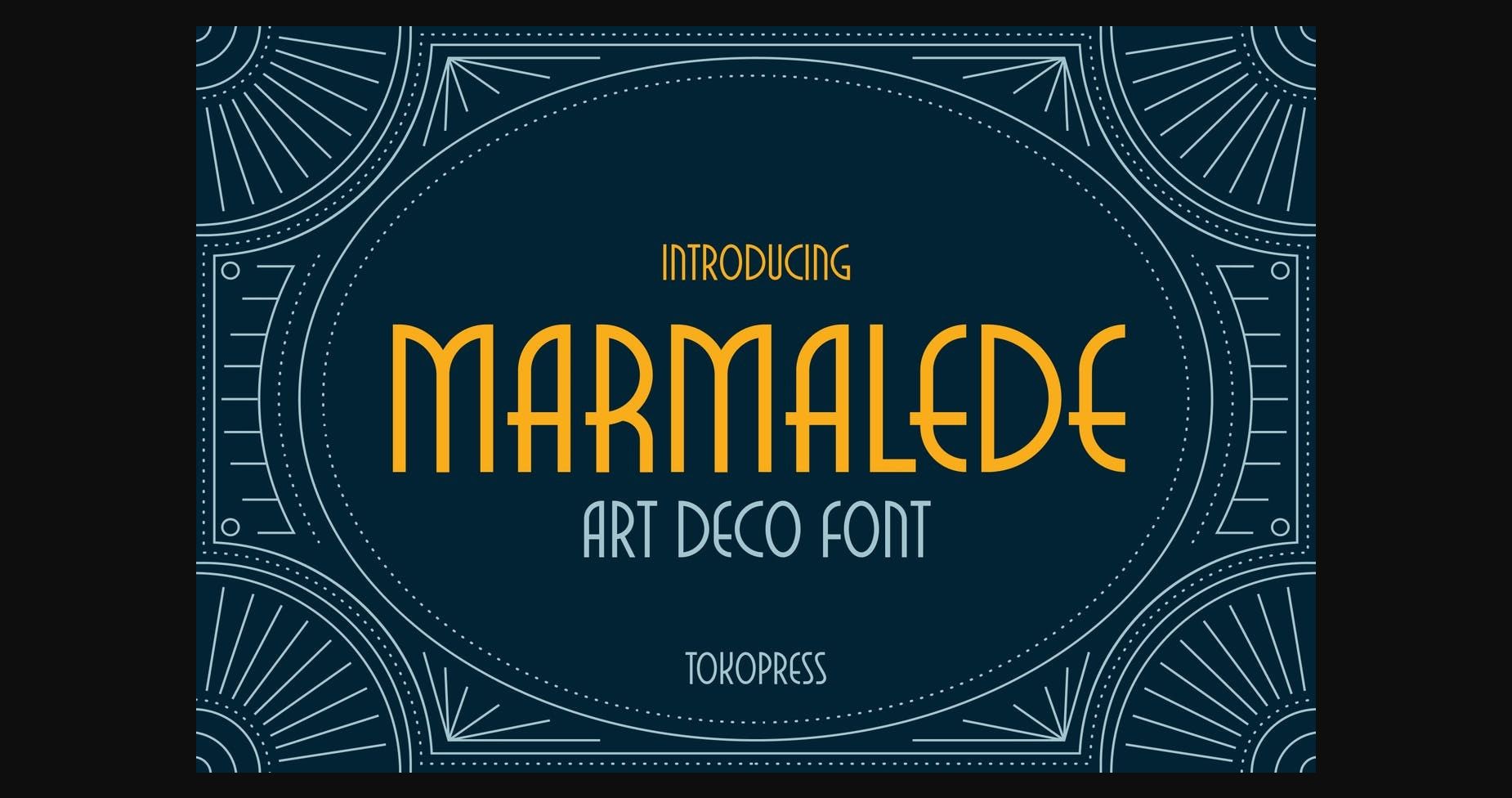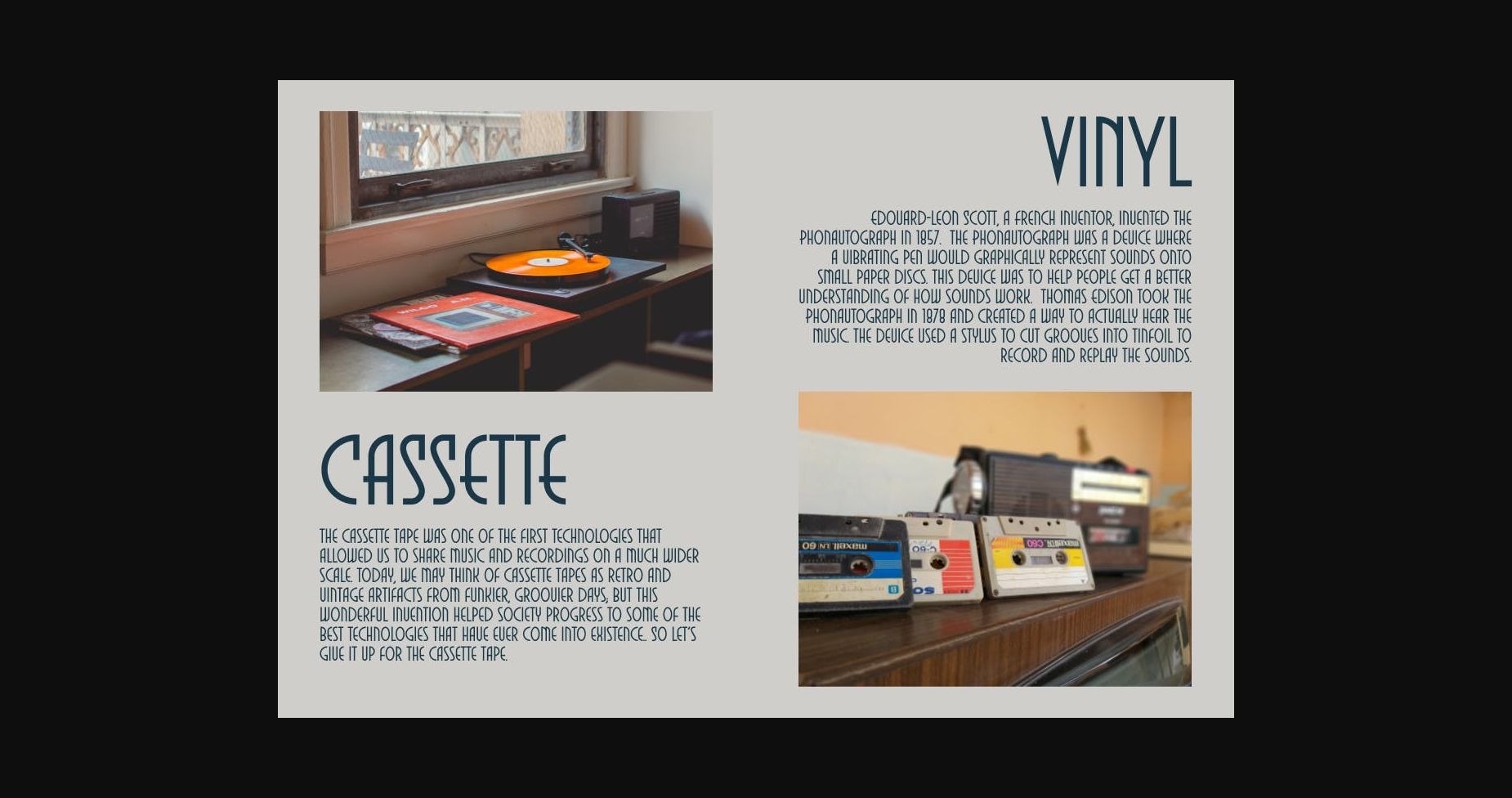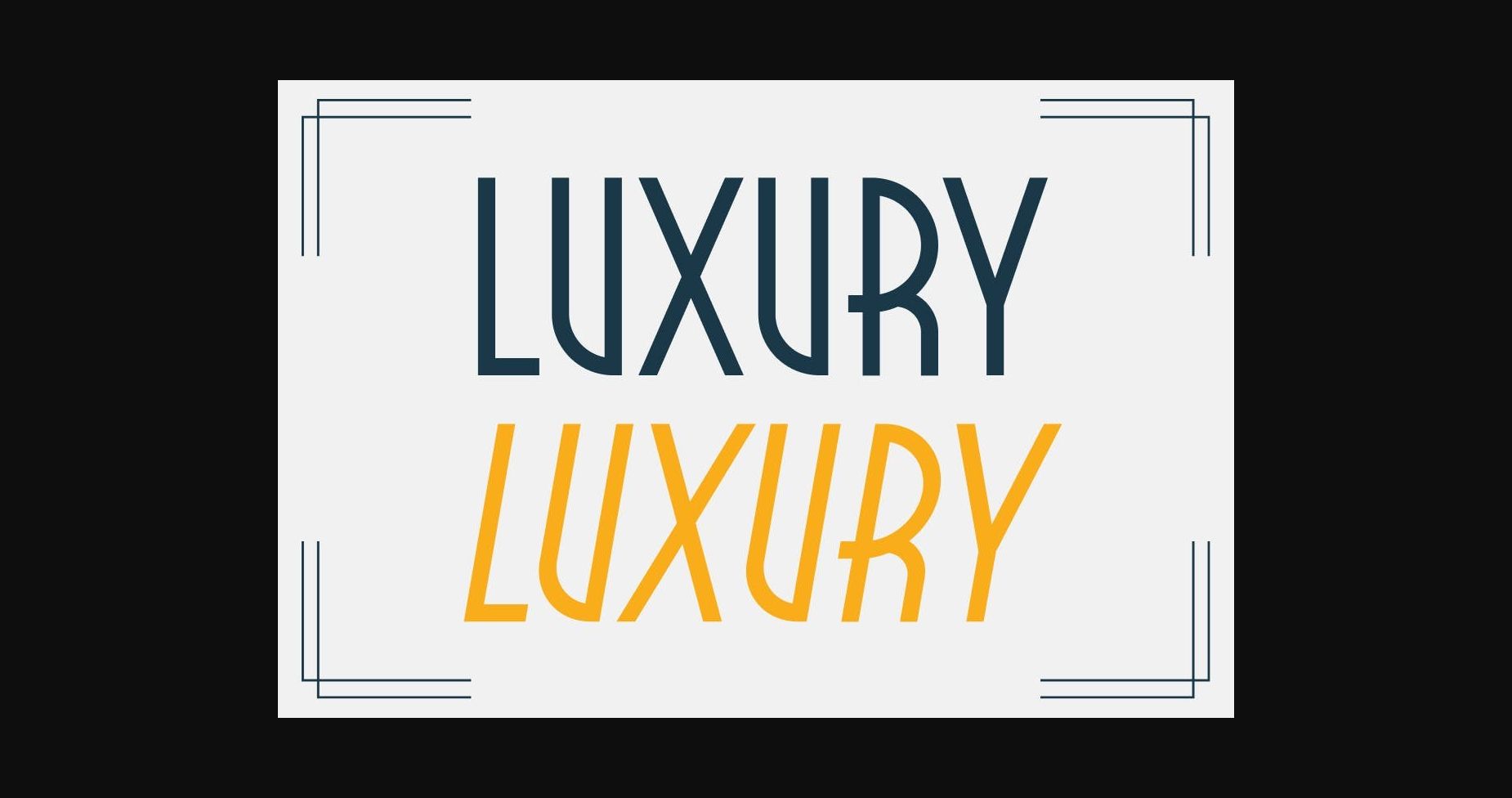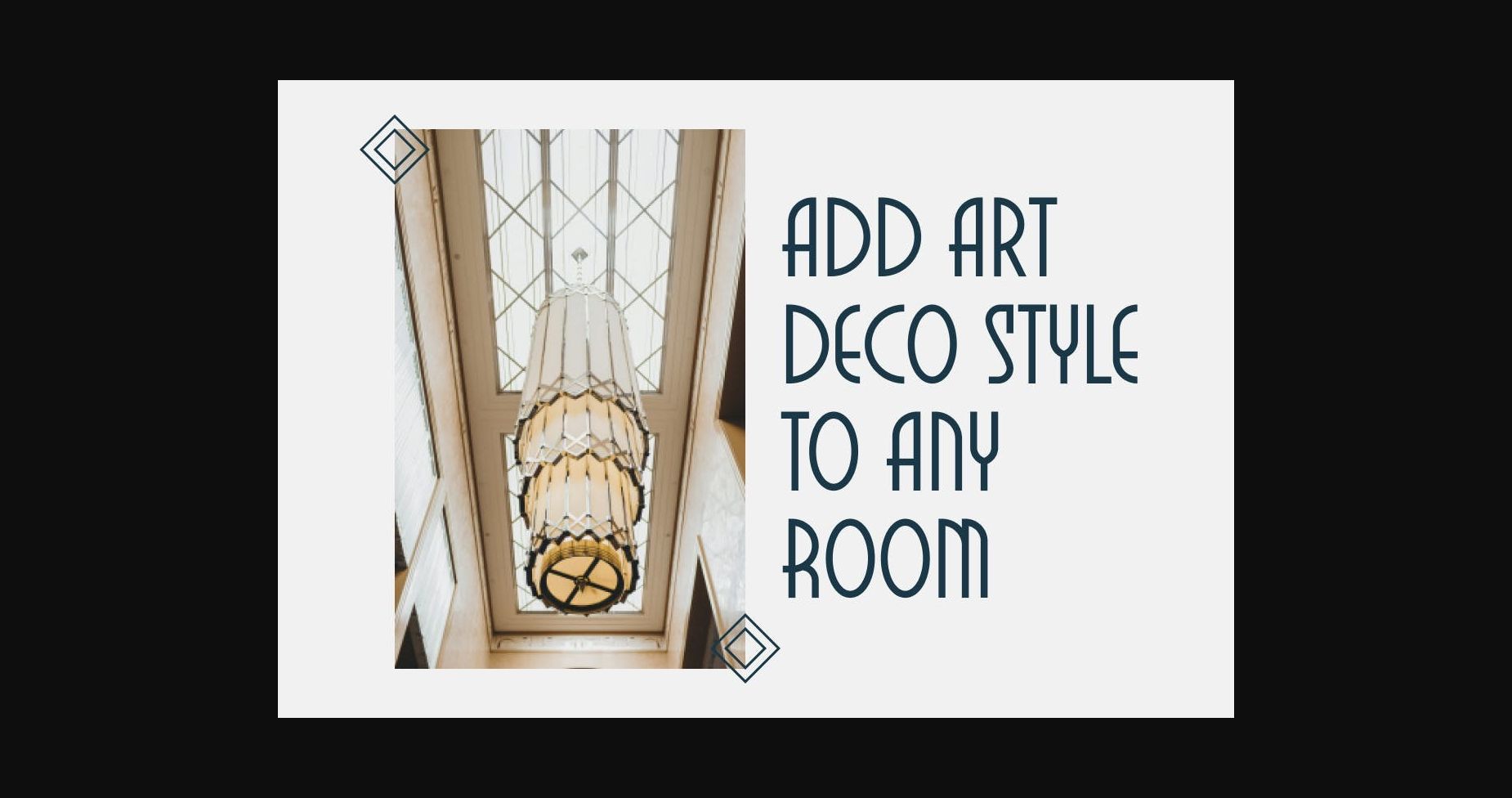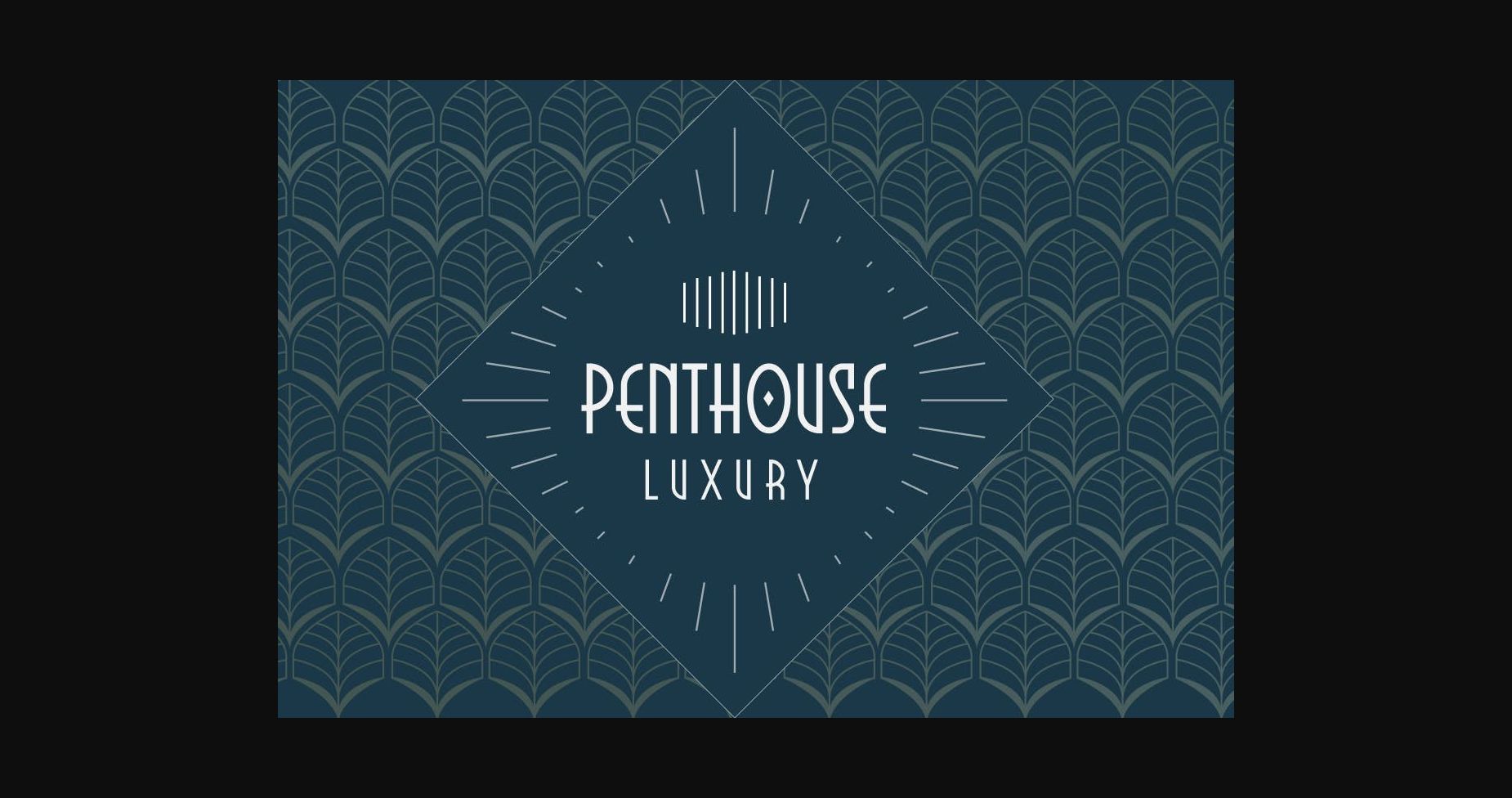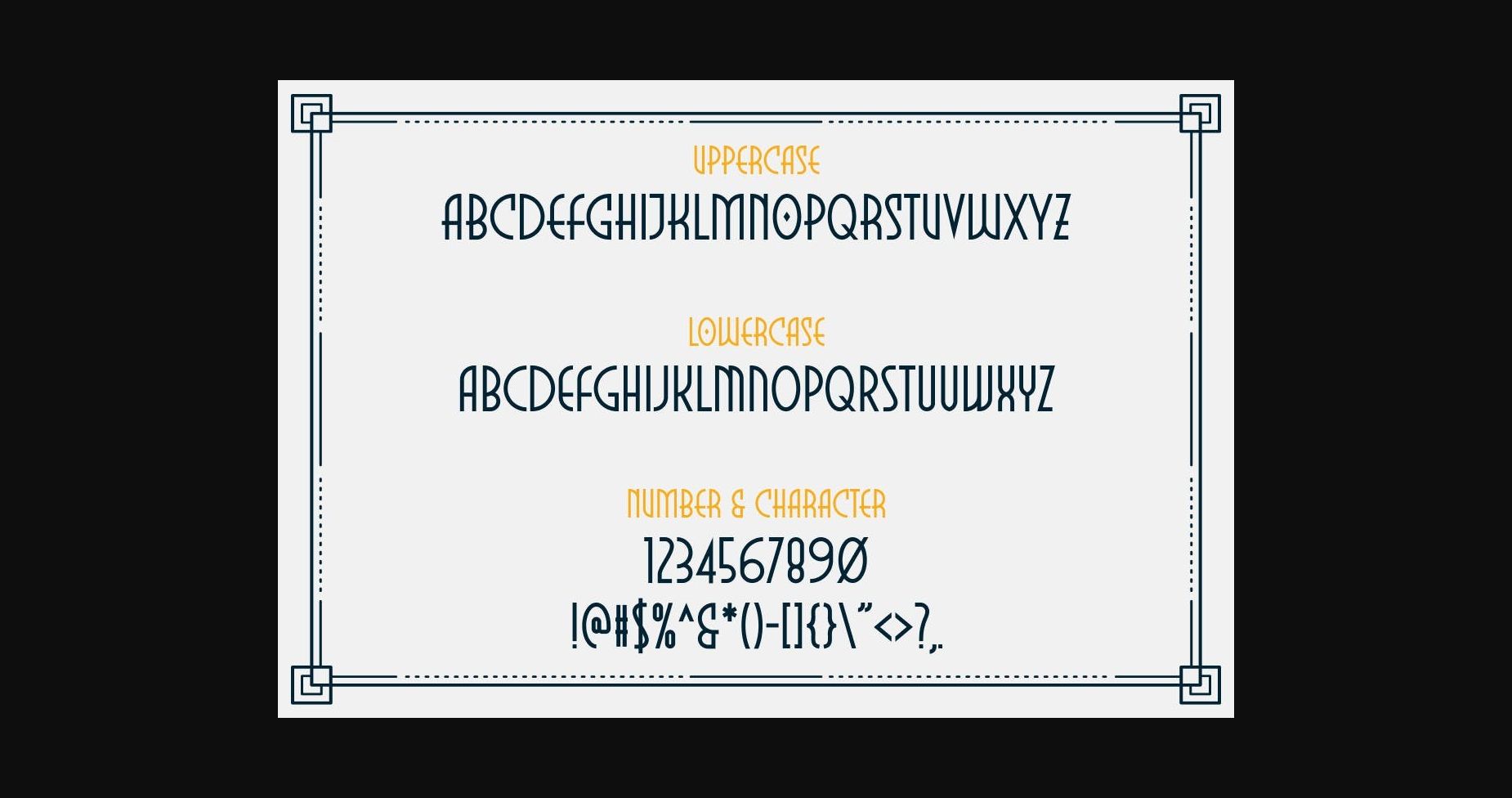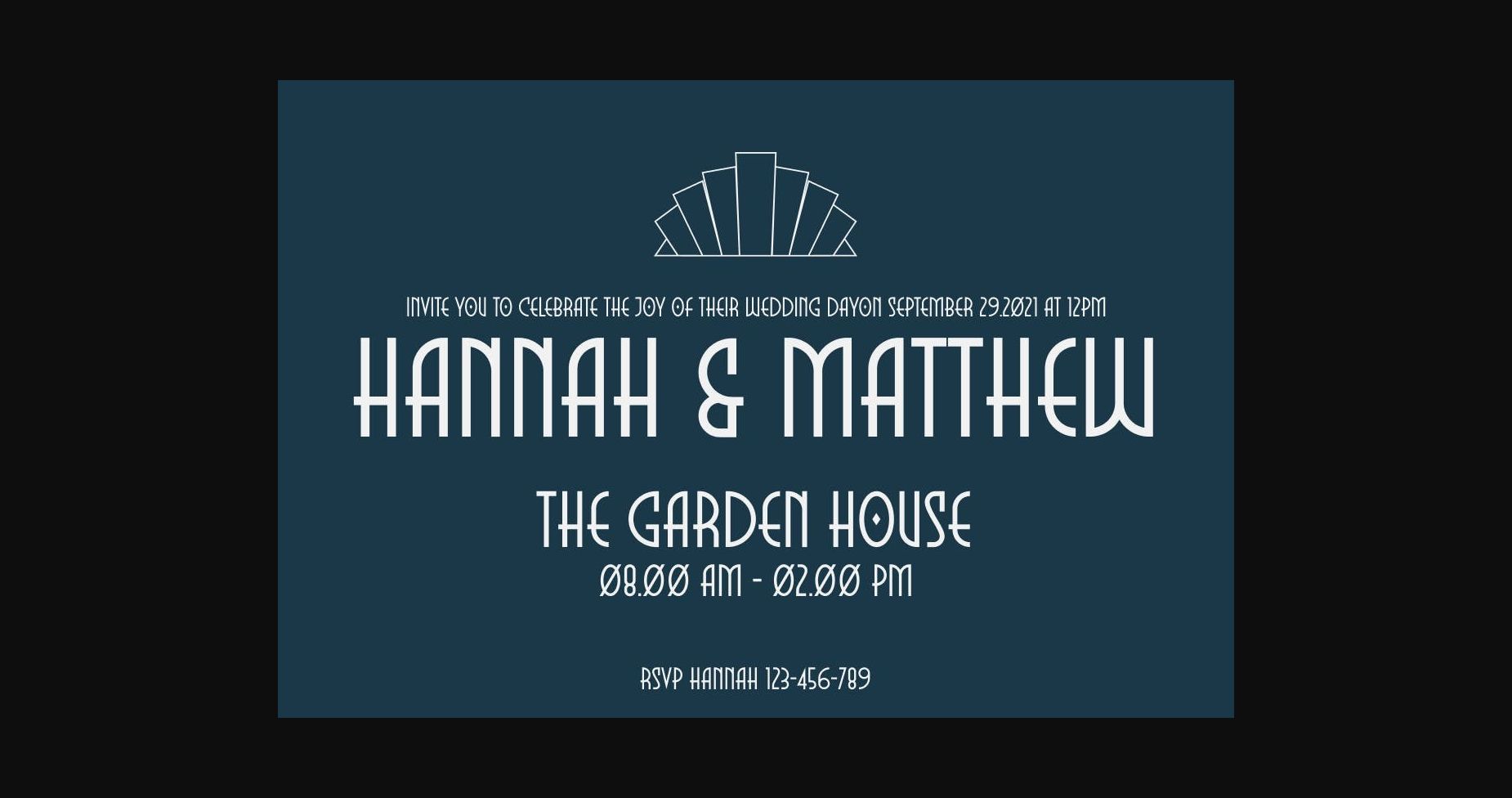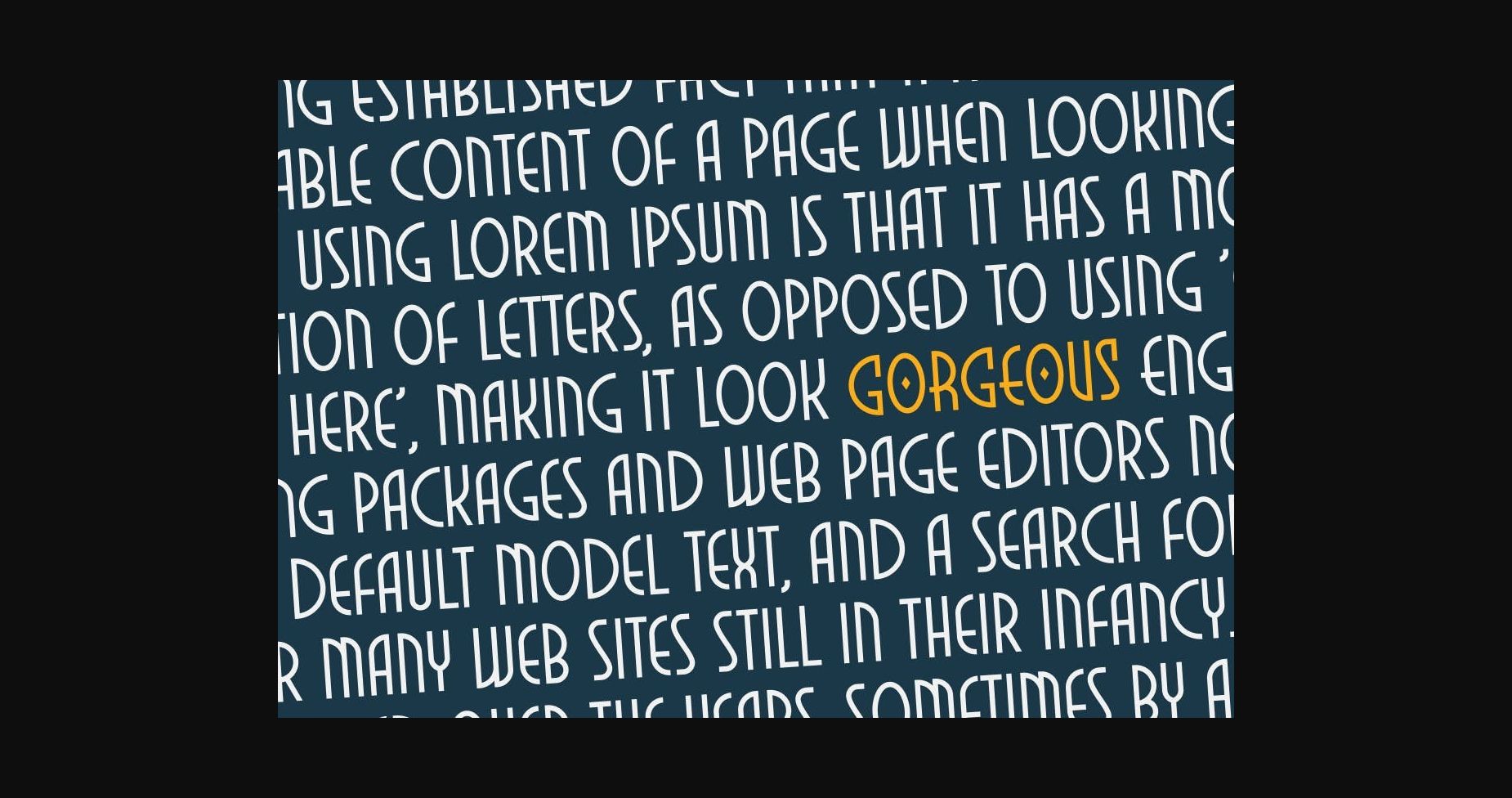
HomeSans Serif FontsMarmalede Font Sans Serif Fonts Marmalede Font FacebookXPinterestWhatsApp 1 of 11 ... Marmalede Font Poster 2... Marmalede Font Poster 3... Marmalede Font Poster 4... Marmalede Font Poster 5... Marmalede Font Poster 6... Marmalede Font Poster 7... Marmalede Font Poster 8... Marmalede Font Poster 9... Marmalede Font Poster 10... Marmalede Font Poster 11... About Marmalede Font Marmalede is a cool and modern sans serif font. This font is ideal for writing web designs, business cards, or pretty much anything else that requires a unique touch. DOWNLOAD NOW People also explored Nodzillar Font Quadra Font Coastal Animals Font Latte Font Nathasya Font Brasic Font Watermelon Font Holiday Happenings Font Homemade Font 500 0 TagsMarmalede Font Previous articleConmersa FontNext articleA Bit Wavy Font LEAVE A REPLY Cancel reply Comment: Please enter your comment! Name:* Please enter your name here Email:* You have entered an incorrect email address! Please enter your email address here Website: Save my name, email, and website in this browser for the next time I comment. Personal Use Free Budmo Personal Use Free Read more about this font Messages Personal Use Free Read more about this font Rennoya Personal Use Free Read more about this font Septhine Personal Use Free Read more about this font BLOG Using Fonts in Digital Marketing: Tips to Strengthen Your Brand Identity In the realm of digital marketing, every visual element plays a crucial role in shaping a brand's identity, and fonts are no exception. The... Best Fonts for T-Shirt Design – Top 2025 Picks Free vs Paid Fonts: Why Investing in Premium Fonts Is Worth It Fonts That Capture the Spirit of New York City